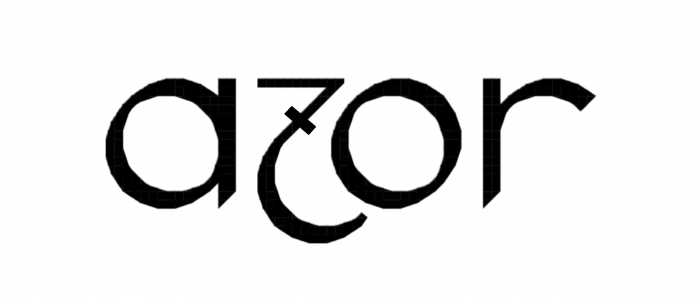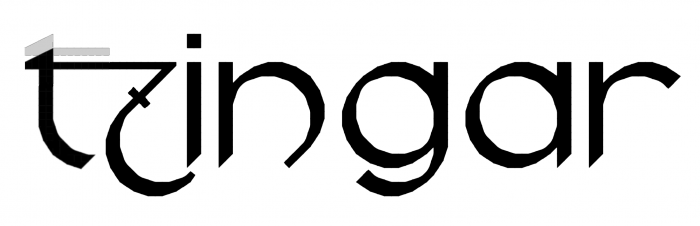
Awesome design! You could maybe slightly increase the letterspacing to improve readability.
@Yautja & @elmoyenique Thanks :) I increased global spacing from 0 to 1.5
And what if you added a little bar to the z?
@elmoyenique added two versions of Zs with a bar to À and Á
You should add accent marks, as well as Greek, Coptic, and Cyrillic next.
Looks... historical
it feels gaelic. 100/10
I've made a clone and used the existing assets to add accent marks for Latin languages for my own use; I published it on my profile for anyone who'd like to use it too.
A lot of interesting design choices! I really like the curly braces, the numerals, the lowercase F, V, Z. Maybe it’s just me, but the lowercase combo -tz- looks a little off.
@Cookielord Thanks! And You're right tz do look off. Maybe it's the kerning but I'm not sure.. Do you have any suggestions on how to fix it?
@elmoyenique the "t" Then more Fix because Up the Line of The Letter...
@elmoyenique @Cookielord I lowered "t" thanks for the help :)